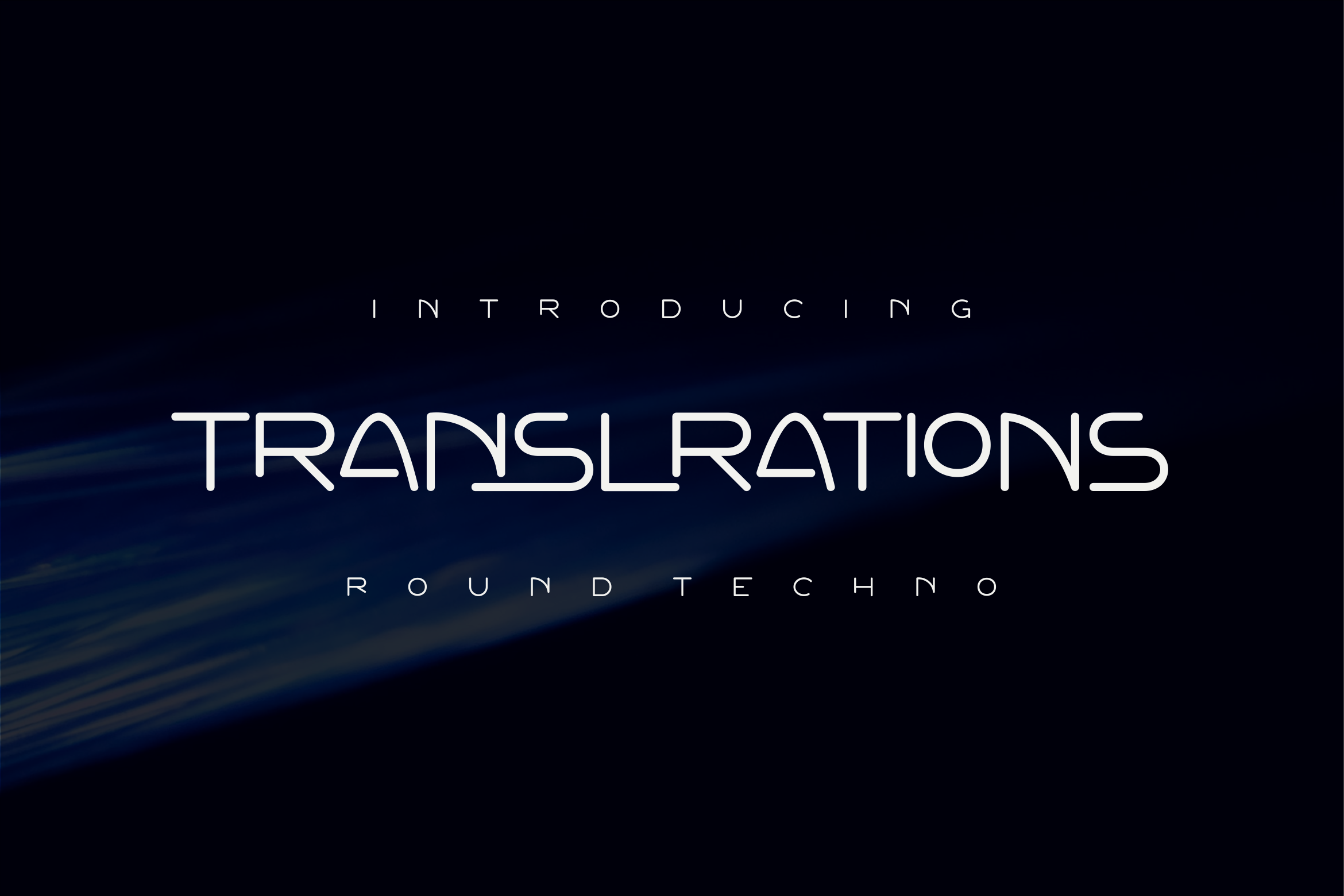
Translrations Font
Translrations Font It has a elegant, classy look and modern. It’s a great font for fashion, apparel projects, signature, album cover, logo, branding, magazine, social media, & advertisements, but also works great for other projects.